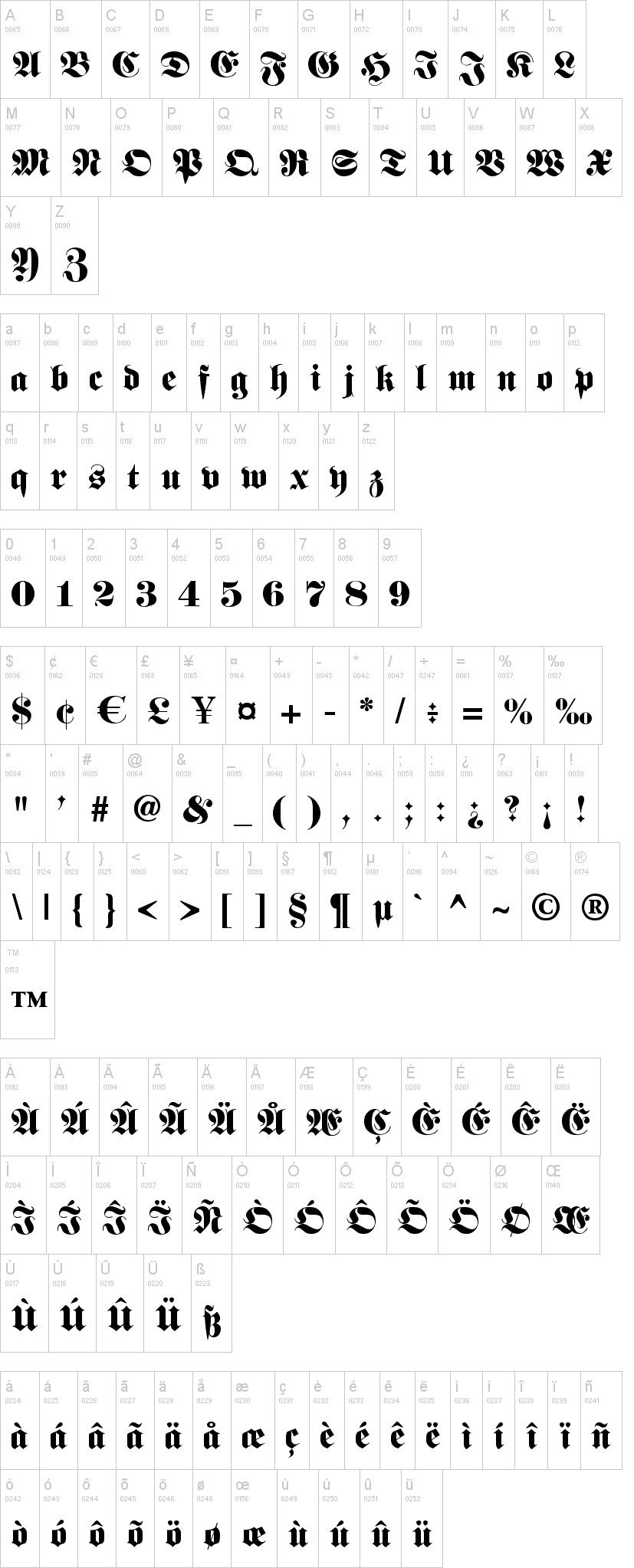
FetteClassicUNZFraktur.ttfNote of the authorMy extended version of "Fette Fraktur" with long s (ſ) and a lot of ligatures. In the package are 2 versions, "Classic" with more Fraktur-like letters k and x